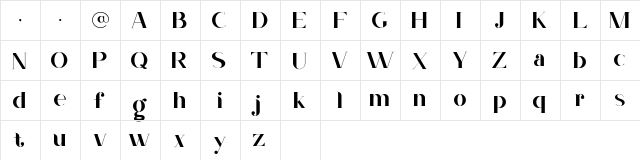
Nevada Nevada_Light
Design Context for Nevada Typeface
Nevada offers clean, dependable letterforms without strong stylistic allegiance, making it a practical choice for designers who need flexibility. The delicate stroke weight brings airiness and refinement to layouts.